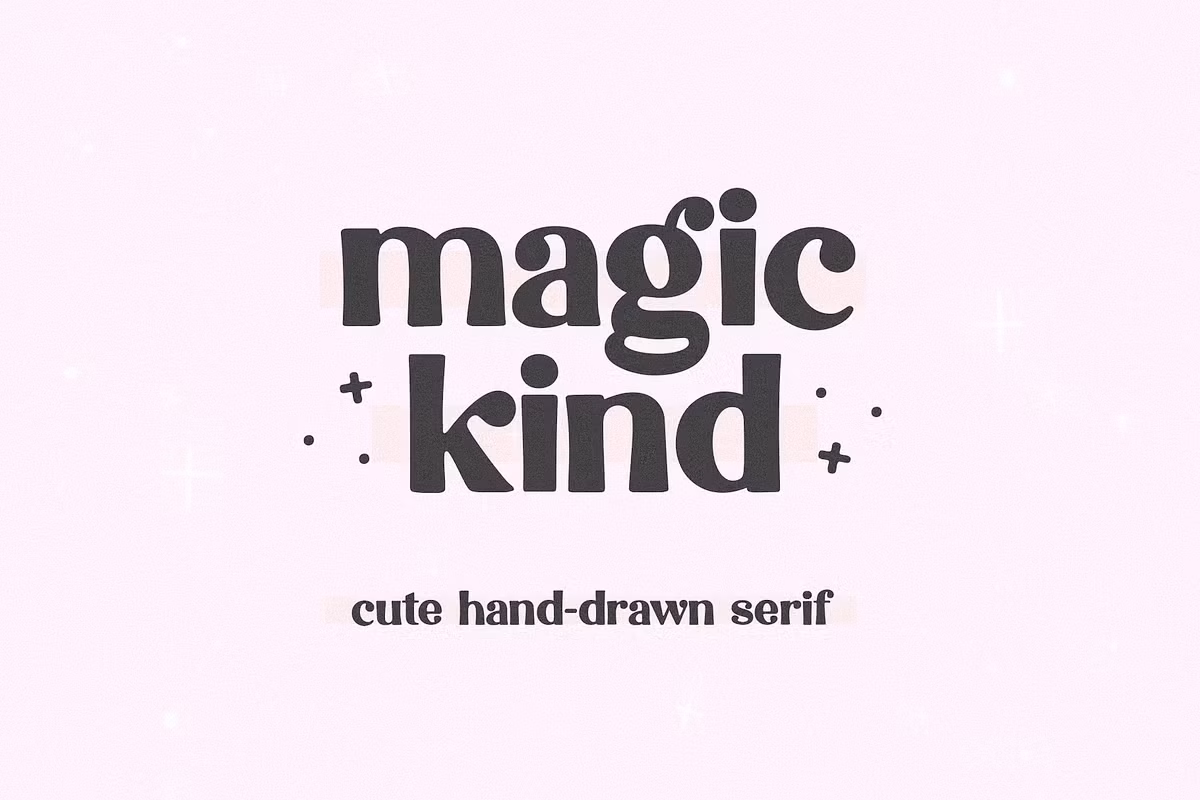
Magickind | Hand-drawn Serif Font Free Download
The Magickind | Hand-drawn Serif Font Free Download is a unique and creative serif typeface that combines the elegance of traditional serifs with the charm of hand-drawn design. Perfect for branding, editorial layouts, packaging, invitations, and creative projects, this font adds an artistic and personal touch to your designs.
With its hand-crafted strokes and detailed serifs, Magickind offers a warm, vintage-inspired feel, making it ideal for projects that require a balance between sophistication and creativity. It includes uppercase and lowercase letters, numbers, punctuation, and multilingual support, ensuring it’s versatile for various design applications.